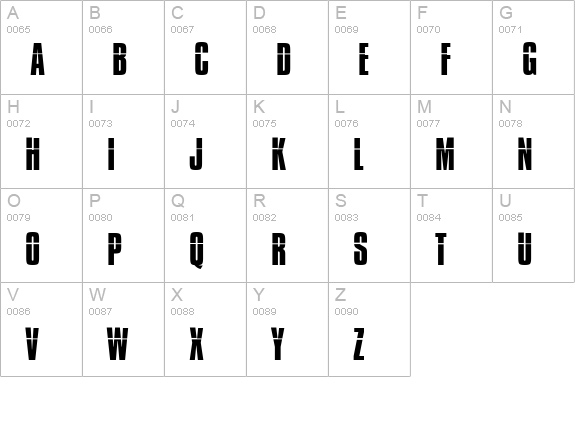
Impossible Font Details
Introducing Impossible font, a visually striking typeface that pushes the boundaries of legibility and creativity. This unique and innovative font is here to challenge the conventional and unleash a world of possibilities in your design projects. Impossible font is meticulously crafted with intricate details that captivate the eye and evoke a sense of intrigue. Its bold and edgy letterforms, combined with unexpected angles and geometric elements, create a mesmerizing visual experience that is both captivating and memorable. This font is designed for those who dare to be different, who embrace the unconventional and seek to make a statement with their designs. Whether you're working on a logo, branding, packaging, or any other creative endeavor, Impossible font is the perfect choice to add a touch of uniqueness and sophistication. But what makes Impossible font even more remarkable is that it is available for free! Yes, you read that right. This extraordinary font can be freely downloaded at FontsMarket.com, a trusted source for high-quality fonts. Now you can enhance your designs without breaking the bank, as Impossible font offers an exceptional value for both professional designers and enthusiasts alike. With its wide range of weights and styles, Impossible font offers versatility and flexibility to suit various design needs. Whether you prefer a bold and impactful look or a more subtle and elegant approach, this font has got you covered. So, why settle for ordinary when you can embrace the extraordinary? Download Impossible font today from FontsMarket.com and embark on a design journey like no other. Unleash your creativity, break the boundaries, and make the impossible with this remarkable font.